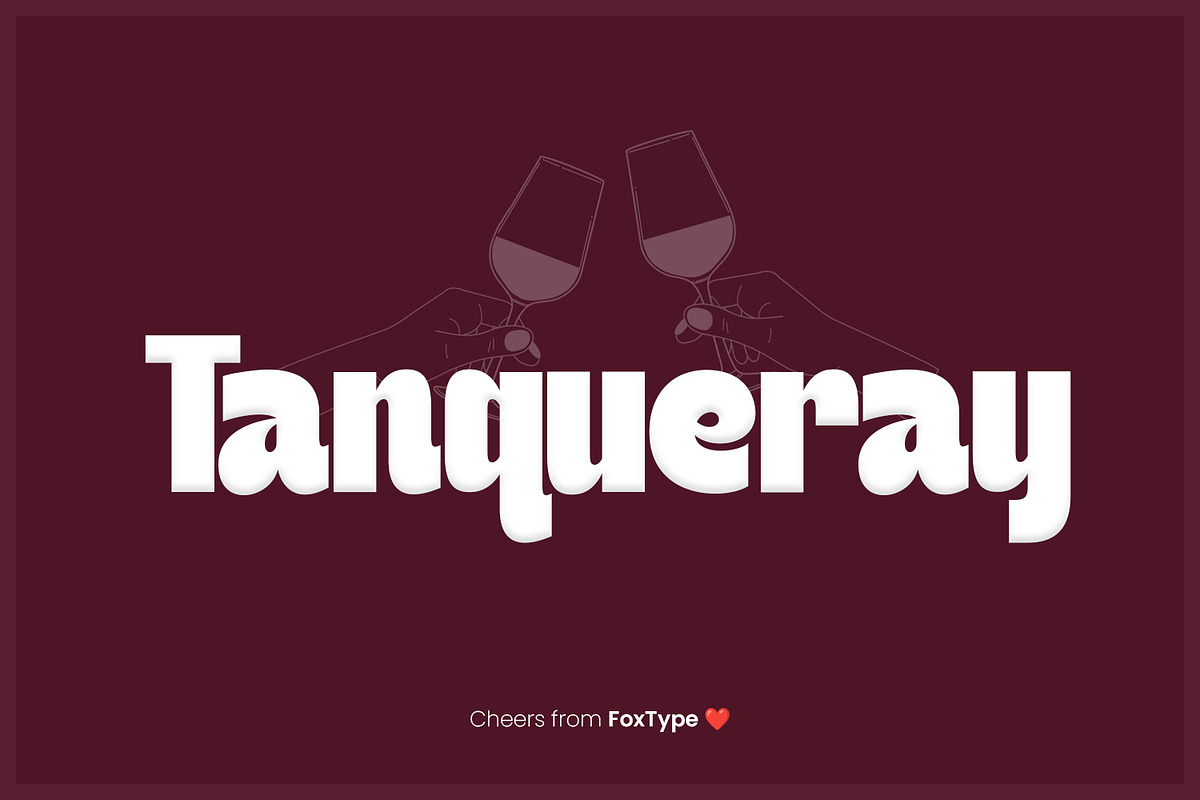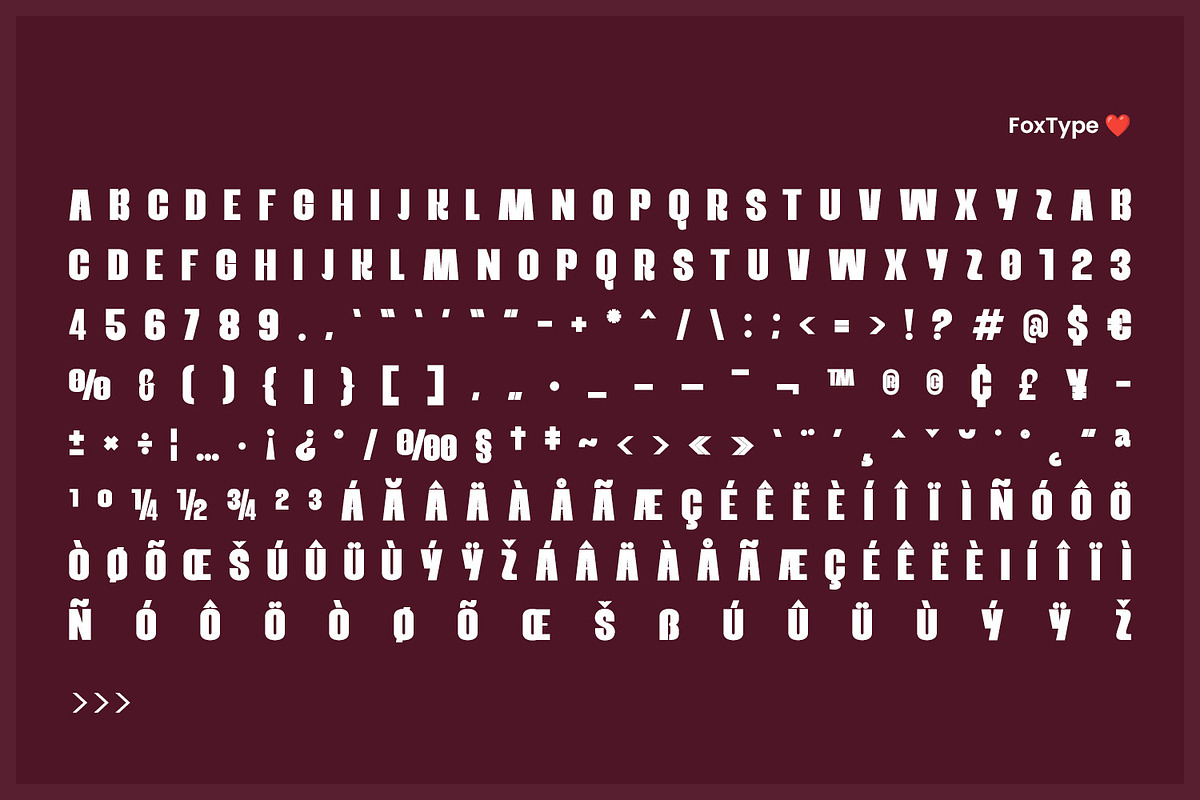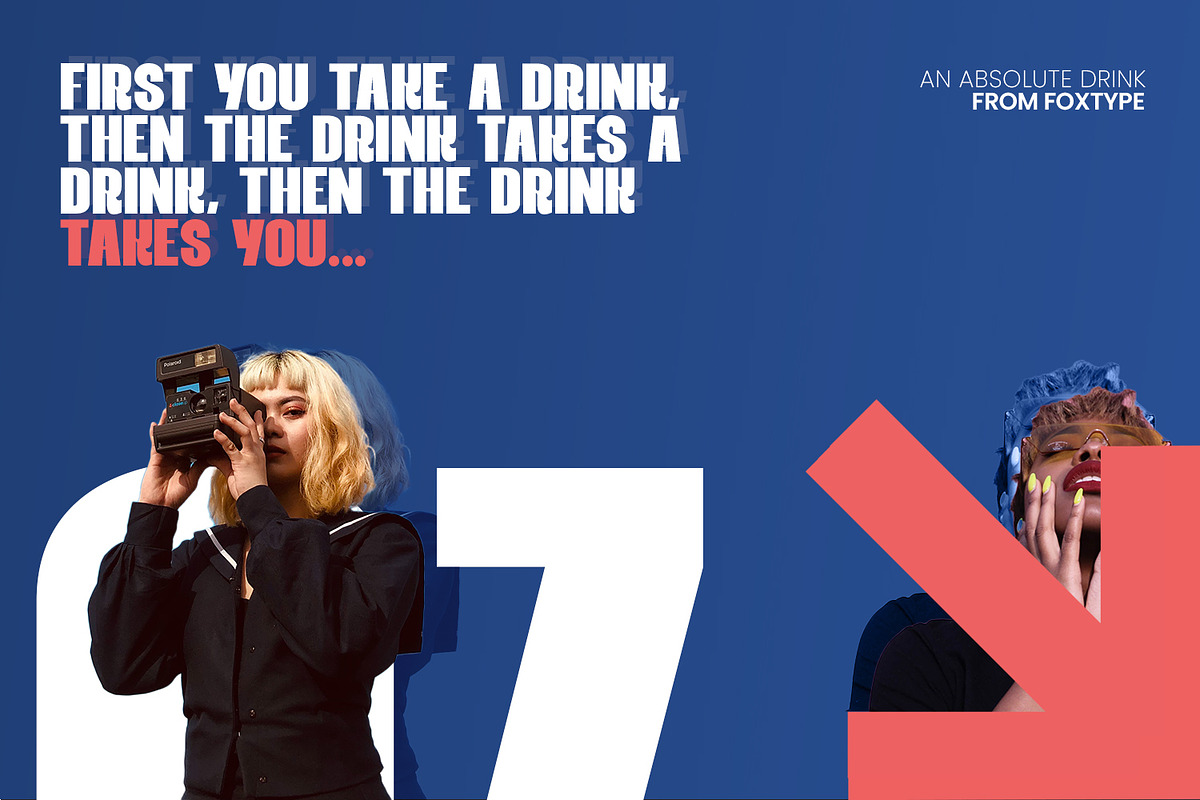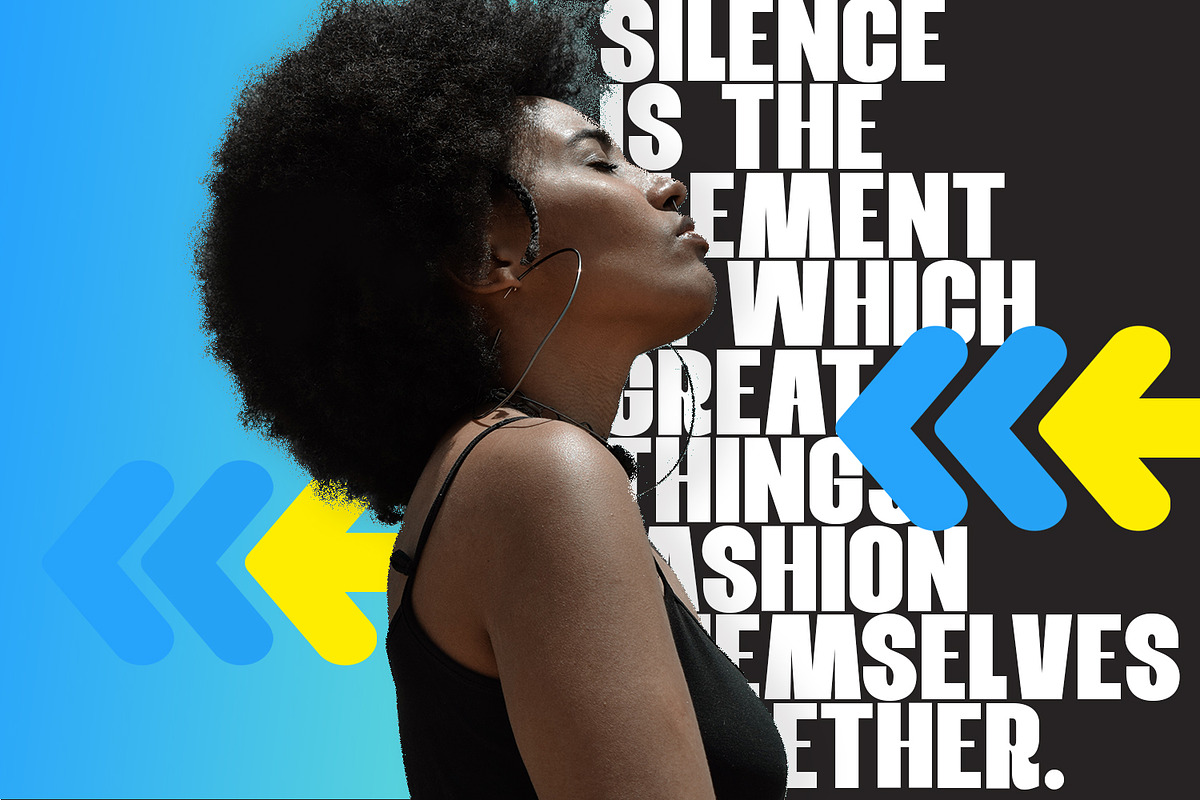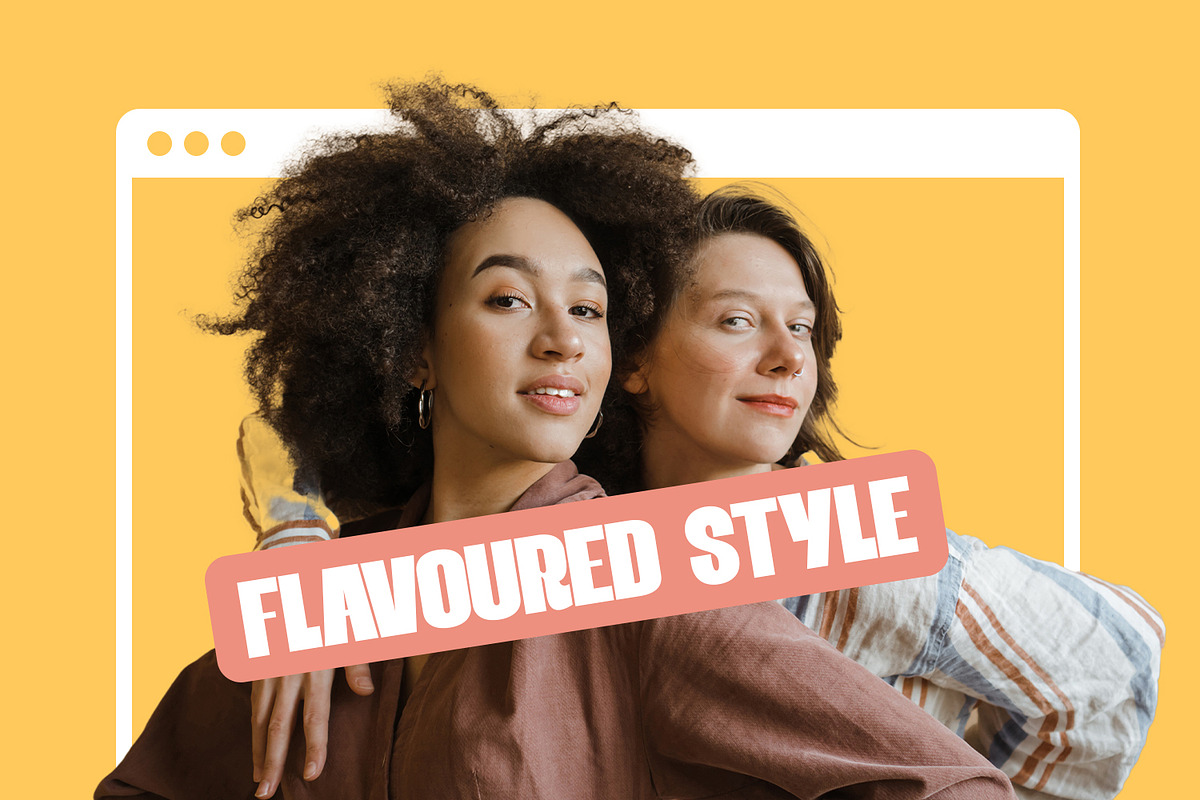
Tanqueray Display
Introducing Tanqueray new generation Decorative Display Typeface. Tanqueray Typeface created with the vision of to attract the audience to your brand. The finest details of this typeface are methodically and mathematically created. Tanqueray is created with all the tasks of a corporate font and also for the usage in a variety of projects, including branding, logos, titles, headlines, posters, screens, display, digital ads, and everything else.
We are putting a lot of effort on this font as a long-term project.